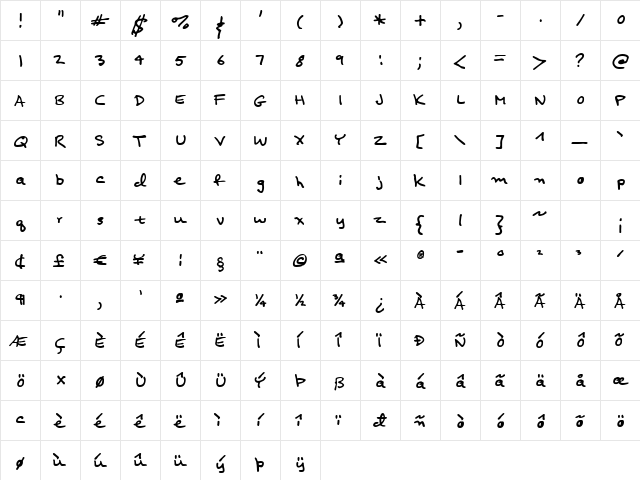
Felt Tip Senior Regular
| Foundry | Mark Simonson |
| Designer | Mark Simonson |
Design Context for Felt Tip Senior Typeface
Felt Tip Senior is a composed and adaptable typeface that performs quietly and consistently across a wide range of design contexts.